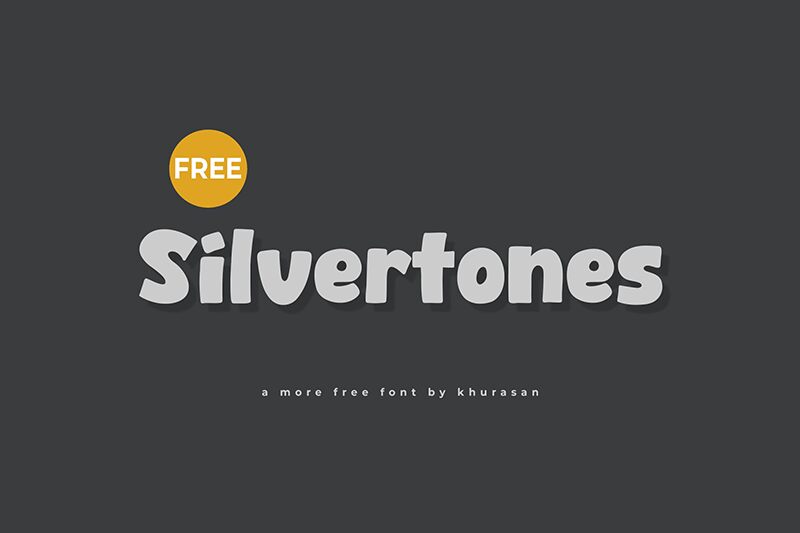
Silvertones font is a vintage-inspired display typeface from Khurasan that will design wonderful comic-style typography intact with all the desired elements. The bold letters are lively, fun, and informal, carrying influences from multiple areas including typography of the seventies.
The free display font will find itself in plenty of uses for signage design, cartoons and comic books, business cards, company names for brands from various industries and branding materials as well. Other interesting ideas include posters design, flyers or even personal signature and invitations.